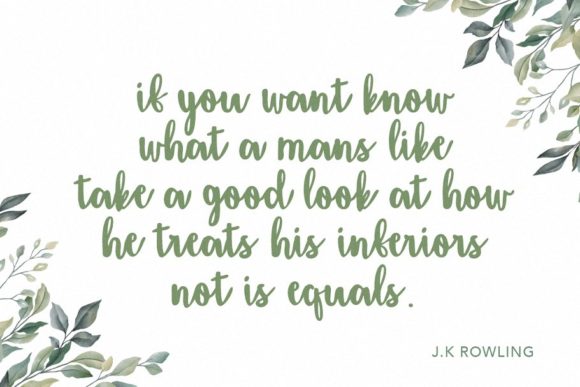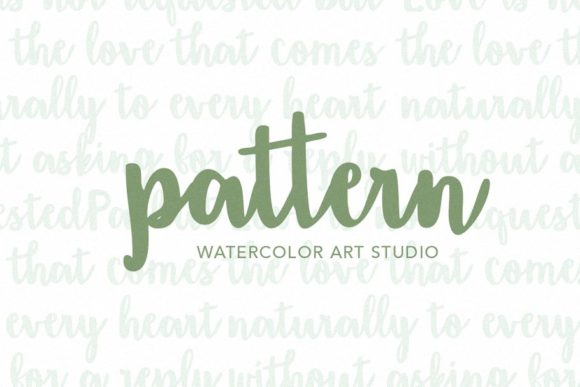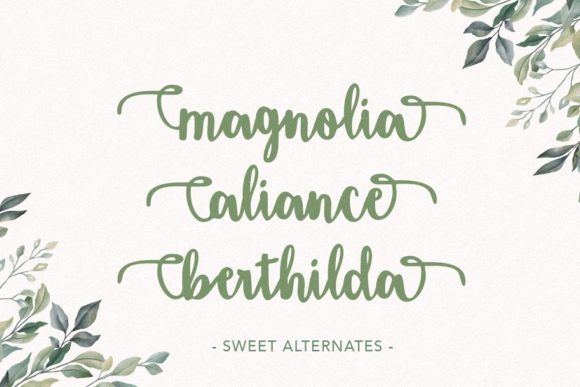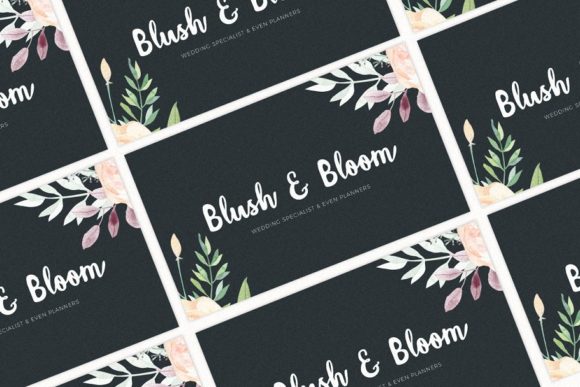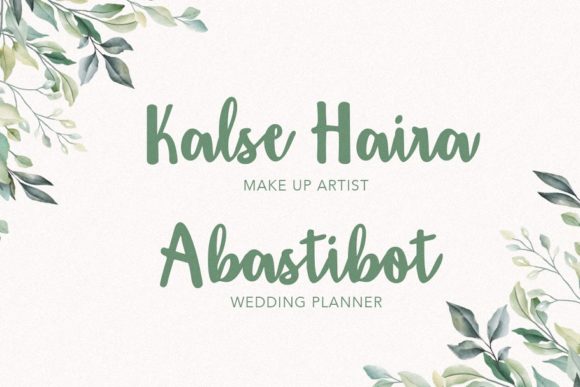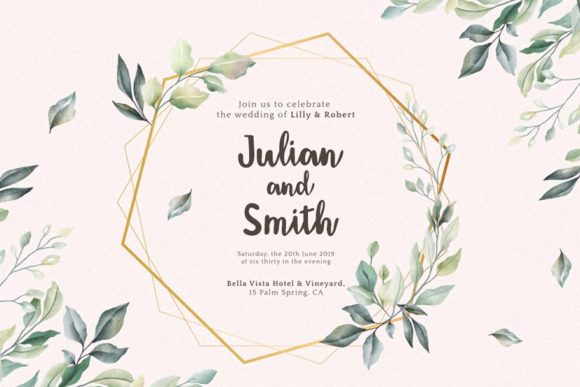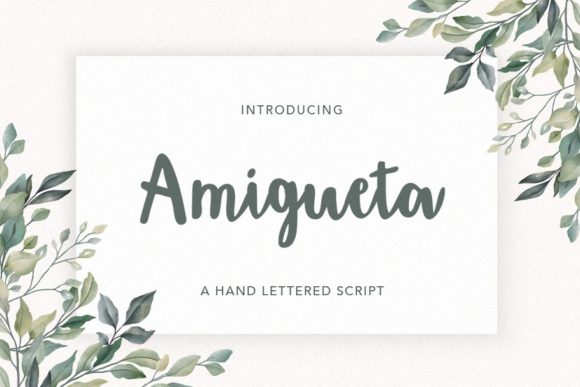
Introducing Amigueta Script Font: The Perfect Blend of Dynamic and Pretty
Are you a designer or crafter looking for a font that can add a touch of personality to your projects? Look no further than Amigueta Script Font! This beautiful font is both dynamic and pretty, making it an ideal crafting font for a wide range of applications.
What is Amigueta Script Font?
Amigueta Script Font is a modern script font that is designed to add a touch of elegance and sophistication to your designs. With its flowing lines and dynamic curves, this font is perfect for creating beautiful and eye-catching text. Whether you’re working on a craft project, designing a logo, or creating a website, Amigueta Script Font is the perfect choice.
Key Features of Amigueta Script Font
- Dynamic and Pretty: Amigueta Script Font is both dynamic and pretty, making it perfect for adding a touch of personality to your designs.
- Elegant and Sophisticated: With its flowing lines and dynamic curves, this font is perfect for creating beautiful and eye-catching text.
- Versatile: Amigueta Script Font is perfect for a wide range of applications, from crafting and DIY projects to logos and website design.
- Easy to Read: Despite its dynamic and cursive nature, Amigueta Script Font is easy to read, making it perfect for body text and headlines.
Why Choose Amigueta Script Font?
So why choose Amigueta Script Font over other fonts? Here are just a few reasons:
- Unique and Creative: Amigueta Script Font is a unique and creative font that will help your designs stand out from the crowd.
- Perfect for Crafting: With its dynamic and pretty nature, Amigueta Script Font is perfect for crafting and DIY projects, such as scrapbooking, card making, and journaling.
- Great for Logos and Branding: Amigueta Script Font is also perfect for logos and branding, adding a touch of elegance and sophistication to your business’s image.
How to Use Amigueta Script Font
Using Amigueta Script Font is easy! Here are a few tips:
- Pair it with Other Fonts: Amigueta Script Font pairs well with other fonts, such as sans serif fonts and bold fonts.
- Use it for Headlines and Titles: Amigueta Script Font is perfect for headlines and titles, adding a touch of elegance and sophistication to your designs.
- Experiment with Colors: Amigueta Script Font looks great in a variety of colors, from bold and bright to soft and pastel.
| Font Name | Amigueta Script Font |
| Author | Solidtype |
In conclusion, Amigueta Script Font is a beautiful and dynamic font that is perfect for designers and crafters. With its elegant and sophisticated nature, this font is ideal for a wide range of applications, from crafting and DIY projects to logos and website design. So why not give Amigueta Script Font a try and see how it can add a touch of personality to your designs?